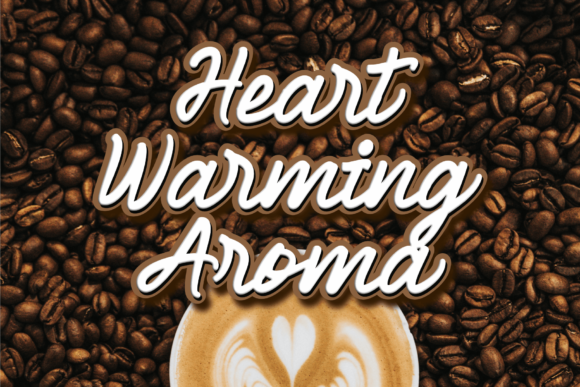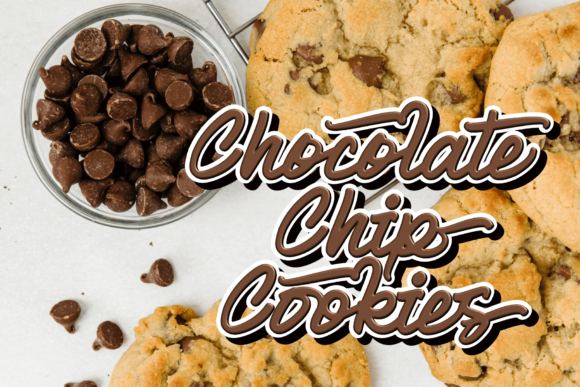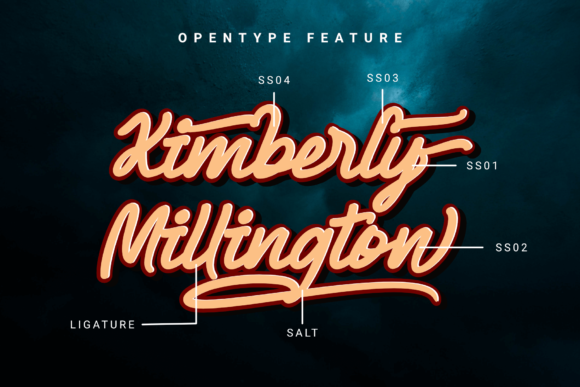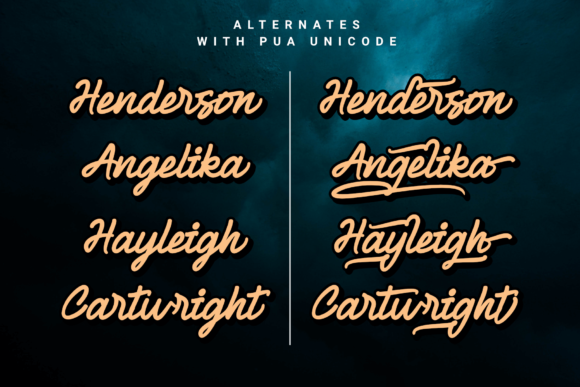
About Shallow Thoughts Font
Shallow Thoughts is a modern and stylish script font that adds a touch of sophistication and elegance to your designs. With its fluid brush strokes and contemporary letterforms, this font is perfect for enhancing various design projects. Whether you’re creating event titles, t-shirt designs, posters, websites, banners, book covers, social media posts, or any other creative endeavor, Shallow Thoughts brings a modern and captivating vibe.
The sleek and flowing nature of Shallow Thoughts makes it a versatile choice for both digital and print designs. Its clean and legible characters make it suitable for headlines, titles, and prominent text elements that require a modern and stylish look. Whether you’re designing a website banner or a poster, Shallow Thoughts catches the eye and adds a touch of sophistication to your composition.
One of the highlights of Shallow Thoughts is its PUA encoded glyphs. This means that you can easily access a wide range of alternate characters and stylistic variations to enhance the uniqueness and customization of your designs. Whether you want to add decorative swashes, ligatures, or special characters, Shallow Thoughts provides you with the flexibility to create visually appealing and personalized typographic layouts.
The versatility of Shallow Thoughts extends to various design applications. Use it to create eye-catching and trendy t-shirt designs that resonate with a modern audience. Apply it to social media posts to add a touch of elegance and sophistication to your brand’s visuals. Craft captivating book covers that stand out on the shelves and draw readers in. The possibilities are endless with Shallow Thoughts.
In summary, Shallow Thoughts is a modern script font that enhances your designs with its sleek and stylish aesthetic. Its legible yet captivating letterforms make it suitable for a wide range of applications, from event titles to t-shirt designs, posters, websites, banners, book covers, and social media posts. With its PUA encoded glyphs, you can easily access alternate characters and customize your designs to perfection. Embrace the modern elegance of Shallow Thoughts and elevate your design projects.